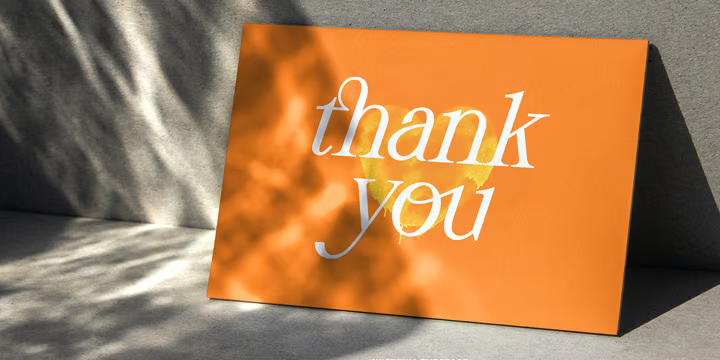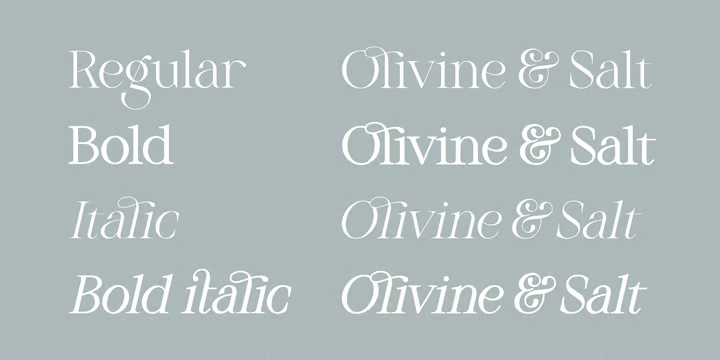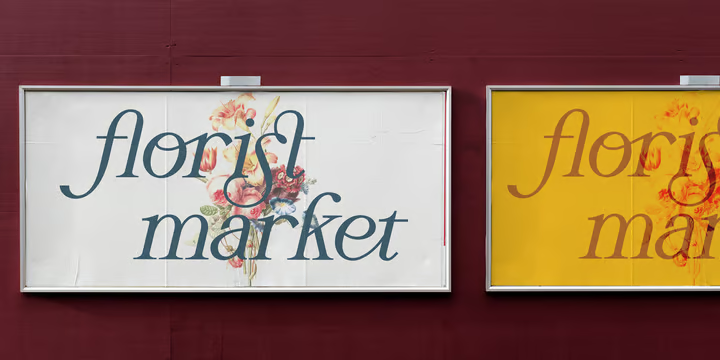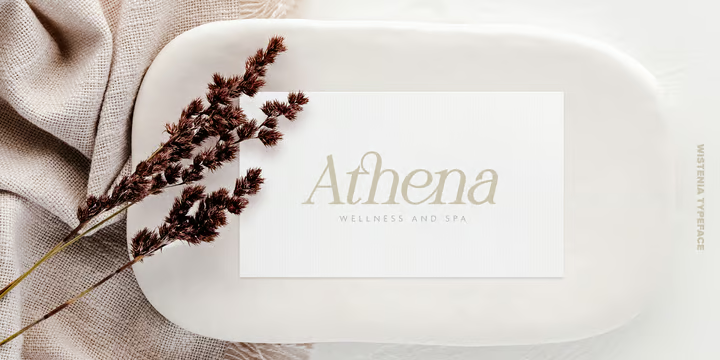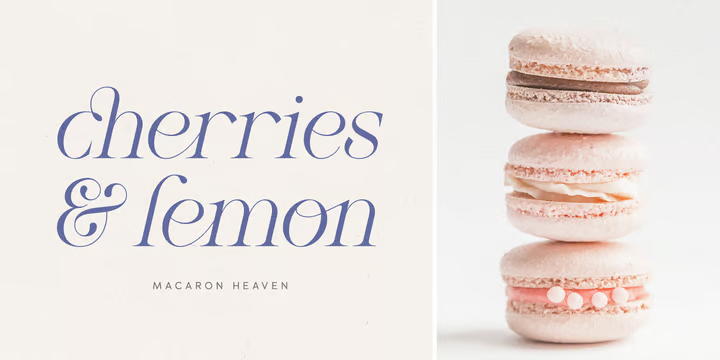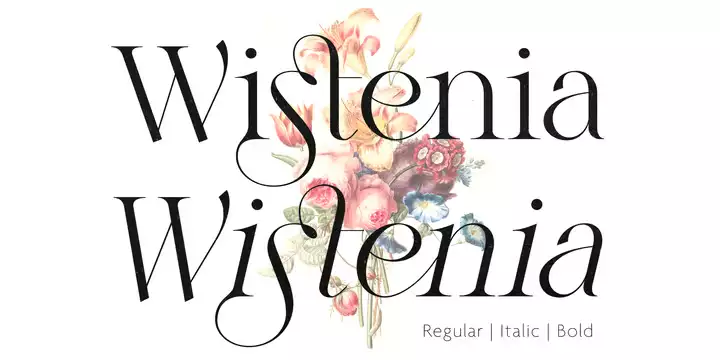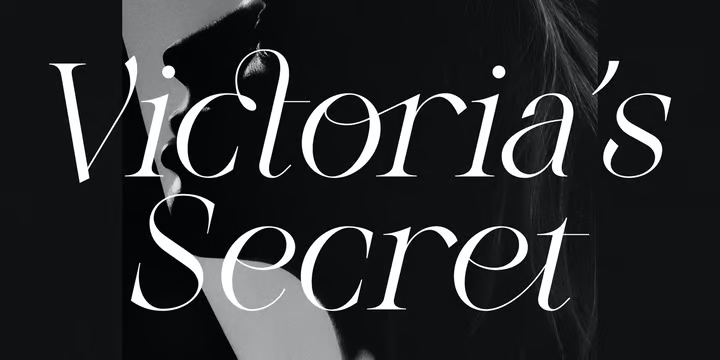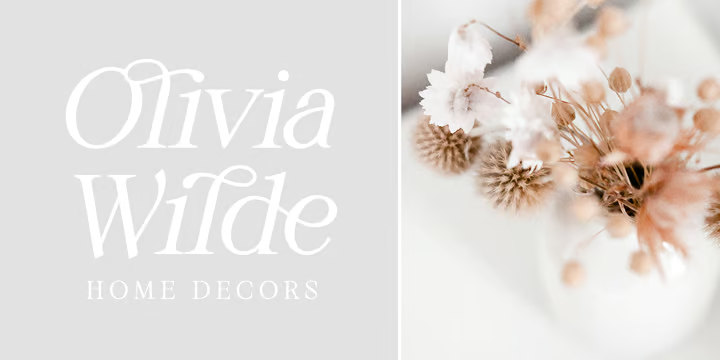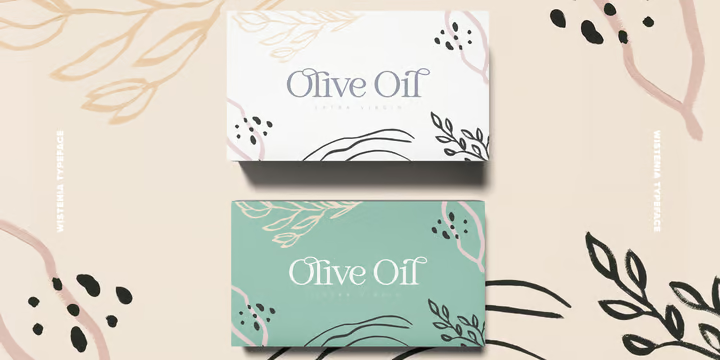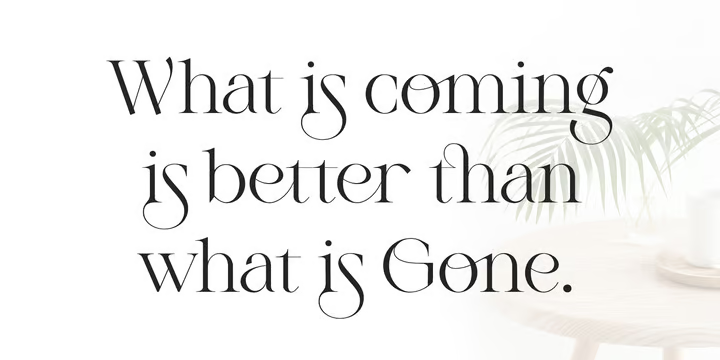
Wistenia Font
Wistenia is a stylish ligature rich typeface inspired by fashion magazines and fragrance brands. Wistenia contains more than 80 LIGATURES. Wistenia Typeface is made main…
Wistenia is a stylish ligature rich typeface inspired by fashion magazines and fragrance brands. Wistenia contains more than 80 LIGATURES. Wistenia Typeface is made mainly for short headlines and titles, but it looks great in advertising, vintage mood board, branding, logotypes, packaging, titles, editorial design and modern and vintage design. For access to Stylistic Alternates is required software with glyphs panel like Photoshop and lllustrator. No special software is required to use Ligatures.
Where Wistenia Font works best
Wistenia Font gives long-form text a classic, trustworthy rhythm — ideal for magazine spreads, annual reports and book interiors.
Pair Wistenia Font with generous letter-spacing for wordmarks in fashion, hospitality, wine and jewellery branding.
Use Wistenia Font for slide titles in Keynote, PowerPoint or Google Slides to add authority without looking dated.
What is Wistenia Font good for?